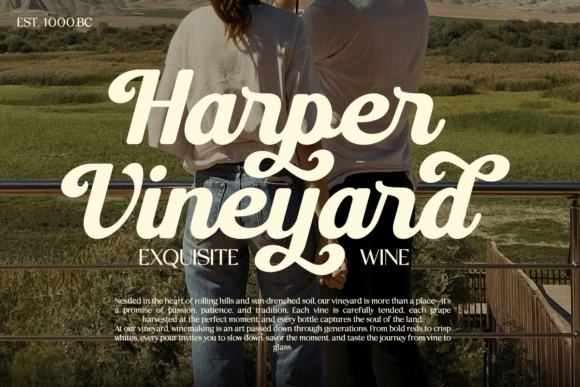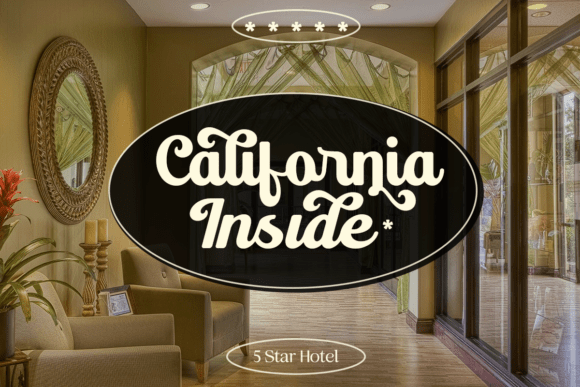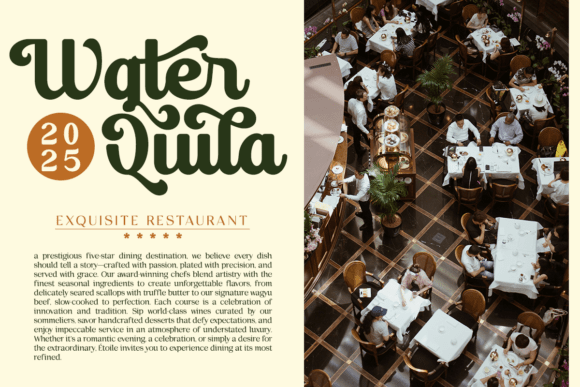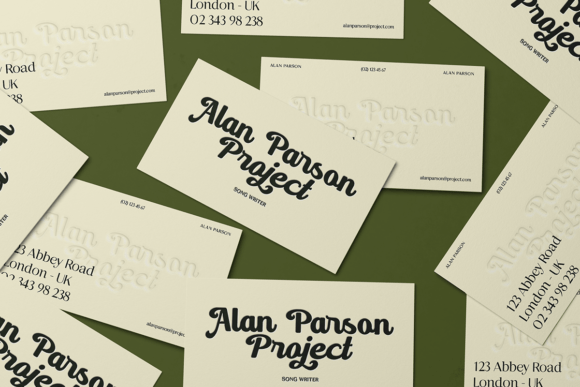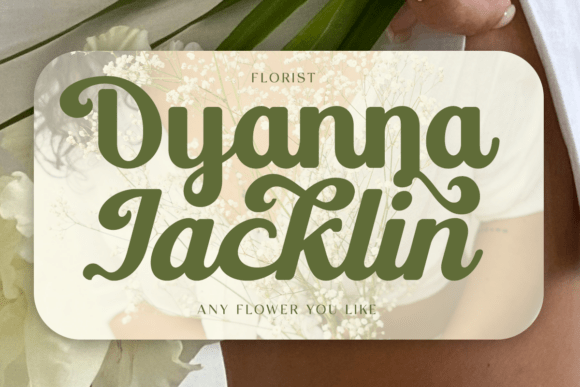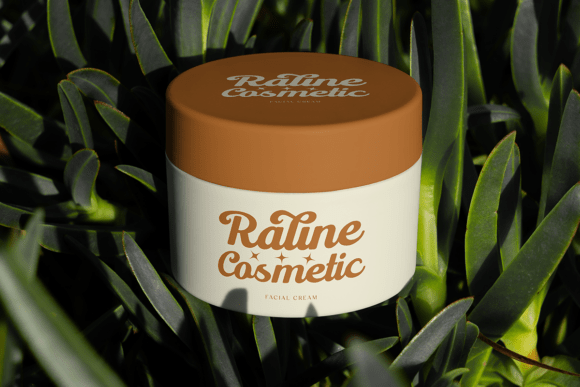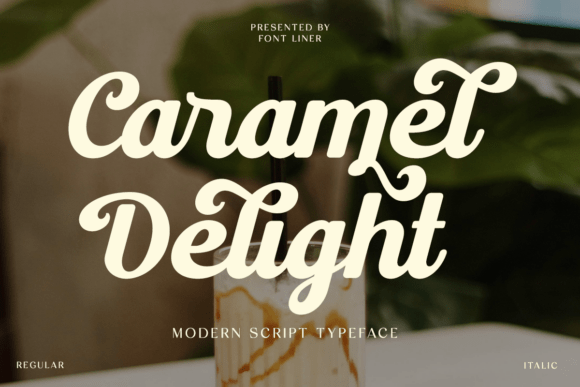
Introducing Caramel Delight Font: The Sweetest Addition to Your Design Toolbox
Are you on the hunt for a font that exudes warmth, elegance, and a dash of playfulness? Look no further than Caramel Delight, a modern script typeface that’s sure to become your new go-to for a variety of design projects. With its smooth lines, bold curves, and retro twist, this beautiful font is perfect for adding a touch of sophistication and whimsy to your branding, packaging, signage, and lifestyle designs.
A Font that’s as Sweet as it is Versatile
Caramel Delight is more than just a pretty face – it’s a highly versatile font that’s designed to adapt to a wide range of creative applications. Whether you’re working on a logo, a menu, a brochure, or a social media graphic, this font is sure to bring a level of elegance and refinement that’s hard to match. And with its bold curves and flowing swashes, it’s also perfect for adding a touch of drama and flair to your designs.
A Retro Twist on Modern Elegance
One of the things that sets Caramel Delight apart from other modern script fonts is its retro twist. While it has a distinctly contemporary feel, it also nods to the classic scripts of the past – think elegant copperplate engravings or vintage advertisements. This gives the font a unique sense of depth and history, while still feeling fresh and modern.
Perfect for Branding, Packaging, and More
So what kinds of projects is Caramel Delight best suited for? The answer is: a wide range! Here are just a few ideas to get you started:
- Branding: Use Caramel Delight to create a logo or wordmark that’s both elegant and memorable.
- Packaging: Add a touch of sophistication to your product packaging with this beautiful font.
- Cafes and Restaurants: Create menus, signage, and promotional materials that are sure to delight your customers.
- Lifestyle Designs: Use Caramel Delight to add a touch of elegance to your social media graphics, blog posts, and other online content.
Available in Regular and Italic Styles
Another great thing about Caramel Delight is that it’s available in both regular and italic styles. This gives you even more flexibility when it comes to designing, as you can use the regular style for headings and the italic style for body text or emphasis. The result is a beautifully cohesive look that feels both polished and refined.
A Handcrafted Feel that’s Hard to Find
One of the things that really sets Caramel Delight apart is its warm, handcrafted feel. While it’s a digital font, it has a distinctly analog feel that’s hard to find in today’s digital age. This makes it perfect for designers who want to add a touch of personality and whimsy to their work.
Tips for Using Caramel Delight in Your Designs
So now that you know a bit more about Caramel Delight, here are a few tips for using it in your designs:
- Pair it with a sans-serif font: For a classic look, try pairing Caramel Delight with a clean sans-serif font like Arial or Helvetica.
- Use it for headings: Caramel Delight is perfect for headings and titles, where its bold curves and flowing swashes can really shine.
- Experiment with colors: Don’t be afraid to get creative with color – Caramel Delight looks great in a wide range of hues, from rich brights to muted pastels.
In conclusion, Caramel Delight is a truly special font that’s sure to become a staple in your design toolbox. With its smooth lines, bold curves, and retro twist, it’s the perfect choice for adding a touch of elegance and whimsy to your branding, packaging, signage, and lifestyle designs. So why wait? Download Caramel Delight today and see for yourself why it’s the sweetest addition to your design toolbox!